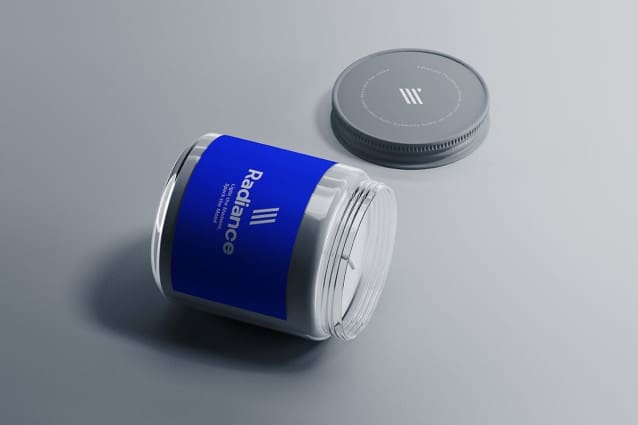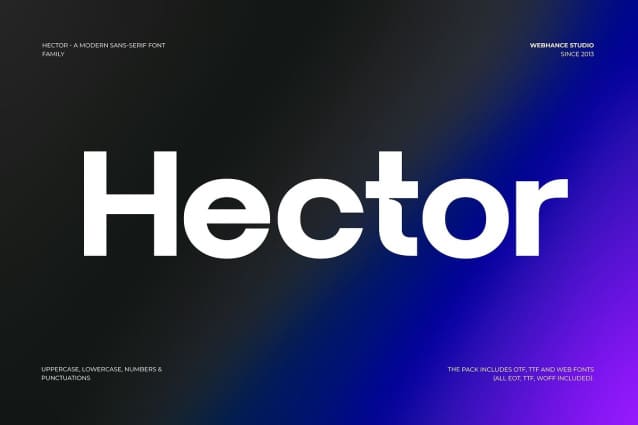
Hector Font
Hector Font is a clean and versatile sans-serif typeface, designed with simplicity and elegance in mind. Currently available in a single weight, with more styles on the way, it’s perfect for any design project that requires a professional and modern touch. Hector Sans offers exceptional readability and a refined aesthetic that will bring sophistication to your work.